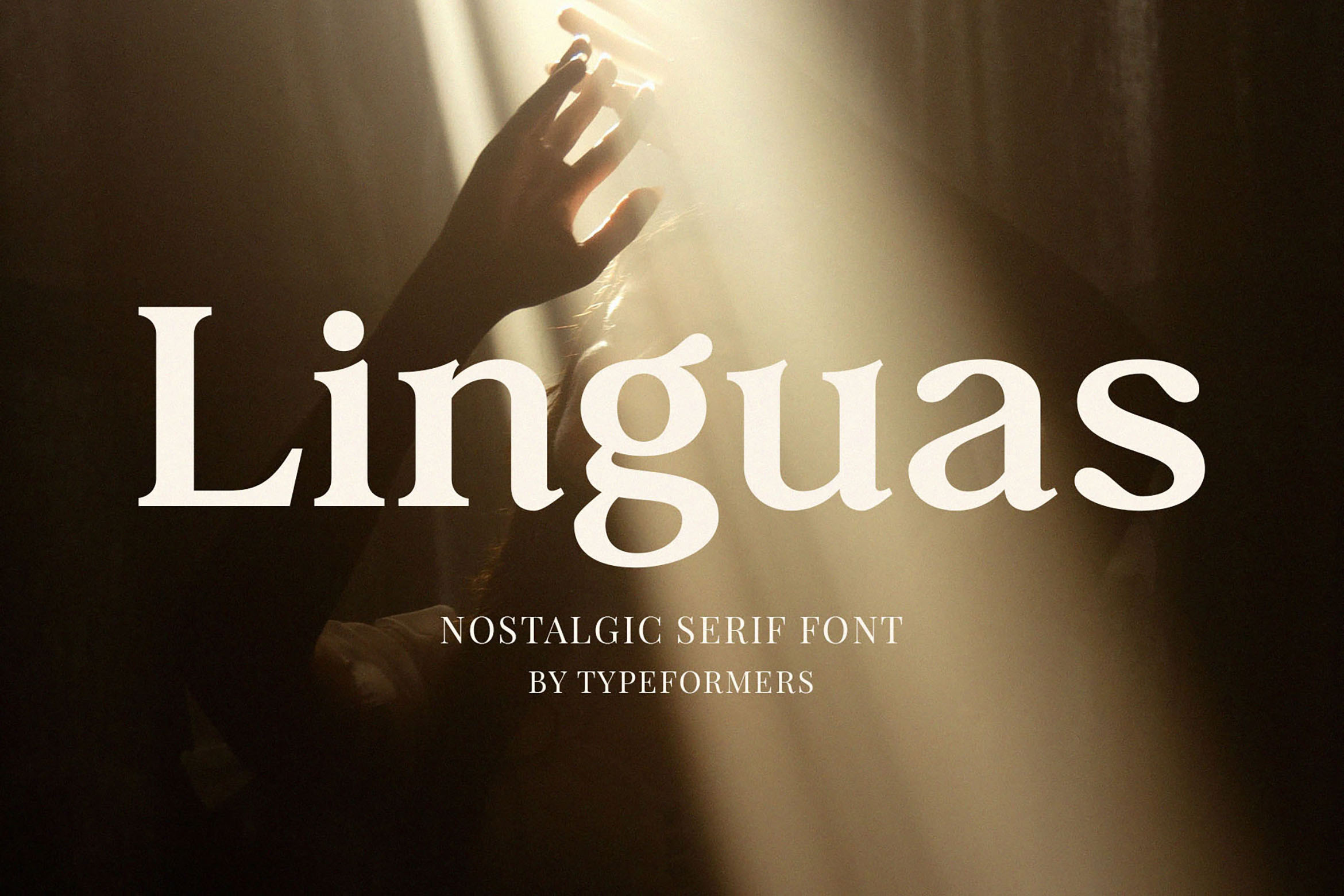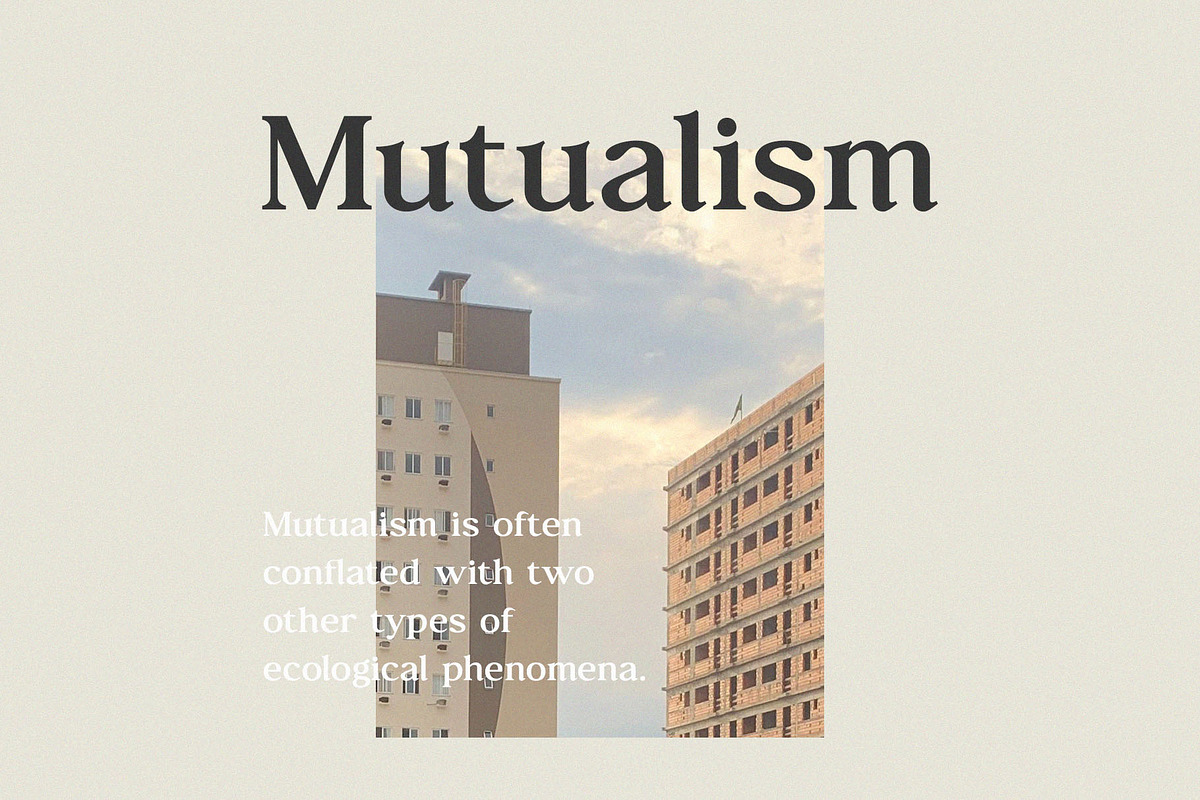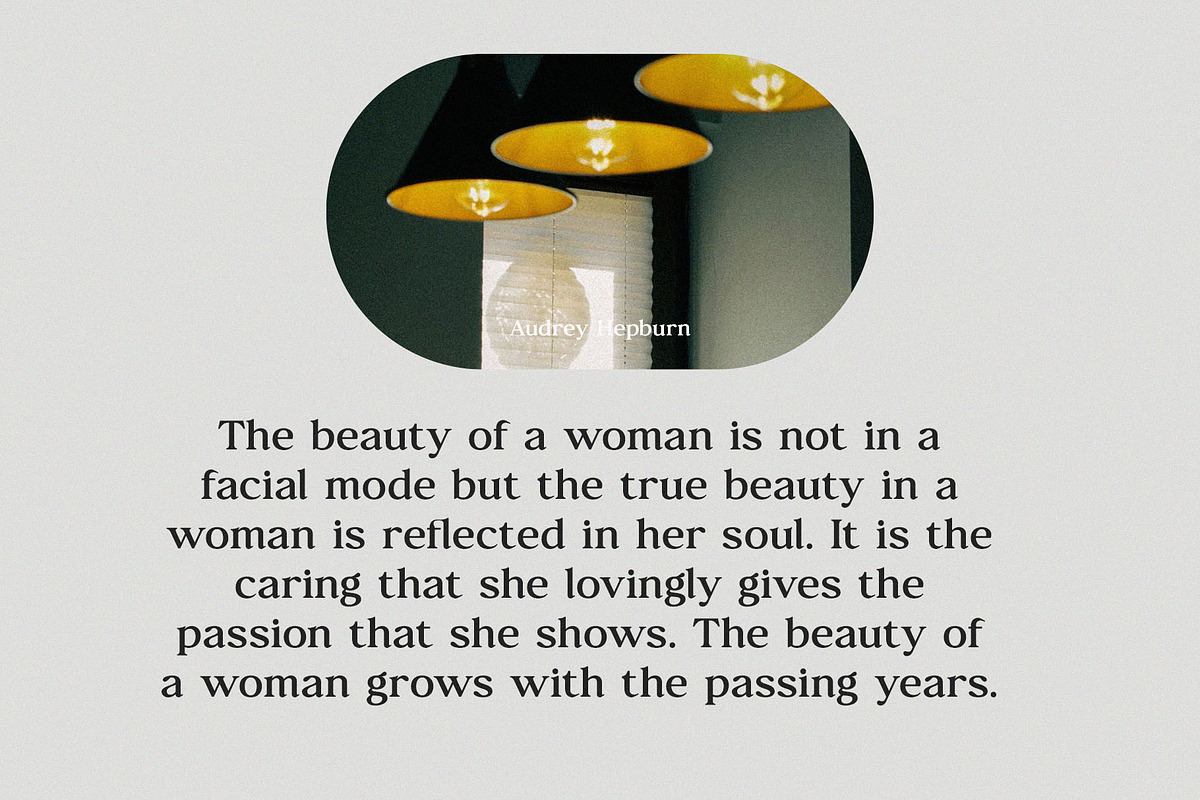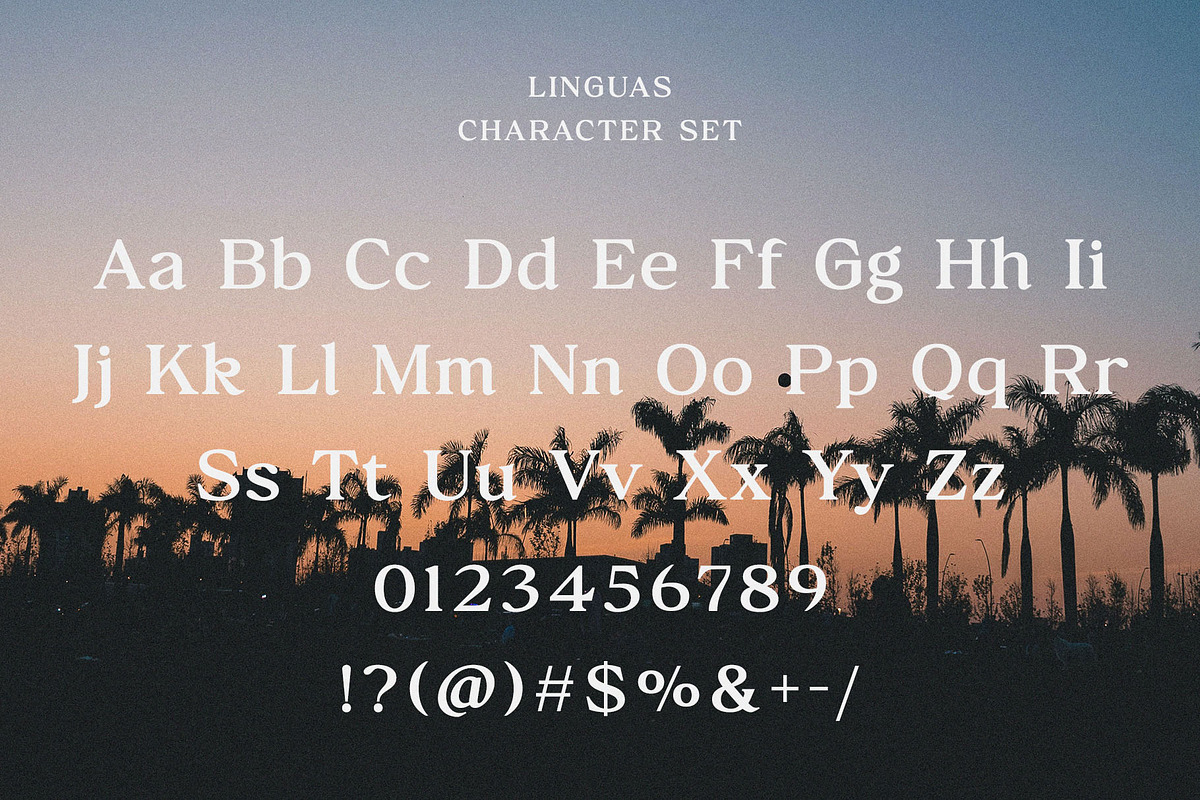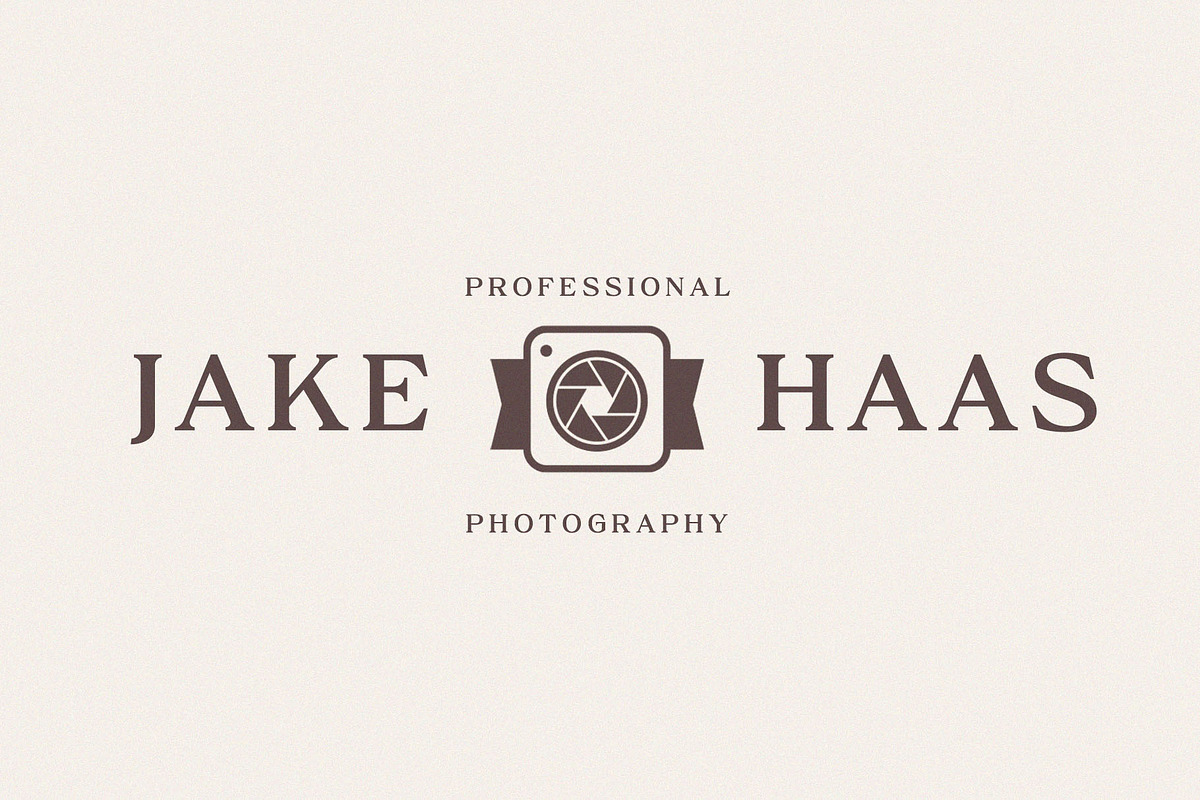
Linguas - Nostalgic Serif Font
Introducing Linguas - Nostalgic Serif Font. Linguas is a nostalgic and simple font, best used as a display for headings, logos, branding, magazines, product packaging and invitations.